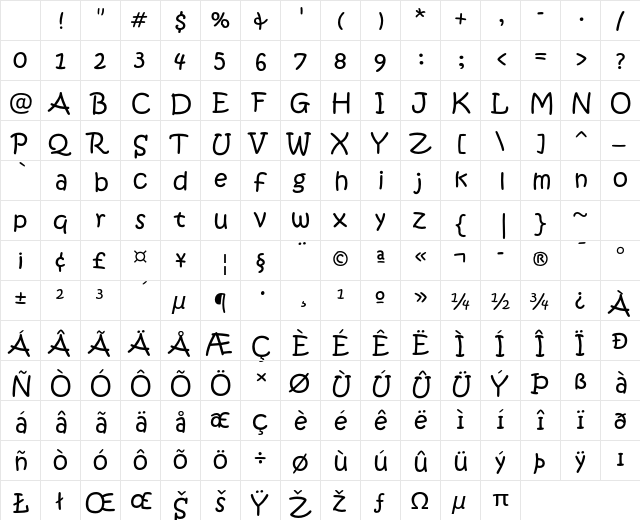
Kristen Normal ITC Std Regular
Designer: George Ryan
Design Context for Kristen Normal ITC Std
Kristen Normal ITC Std is a composed and adaptable typeface that performs quietly and consistently across a wide range of design contexts.
Pro Tip: Use Kristen Normal ITC Std in both headline and body roles to test its range before committing to a single application.